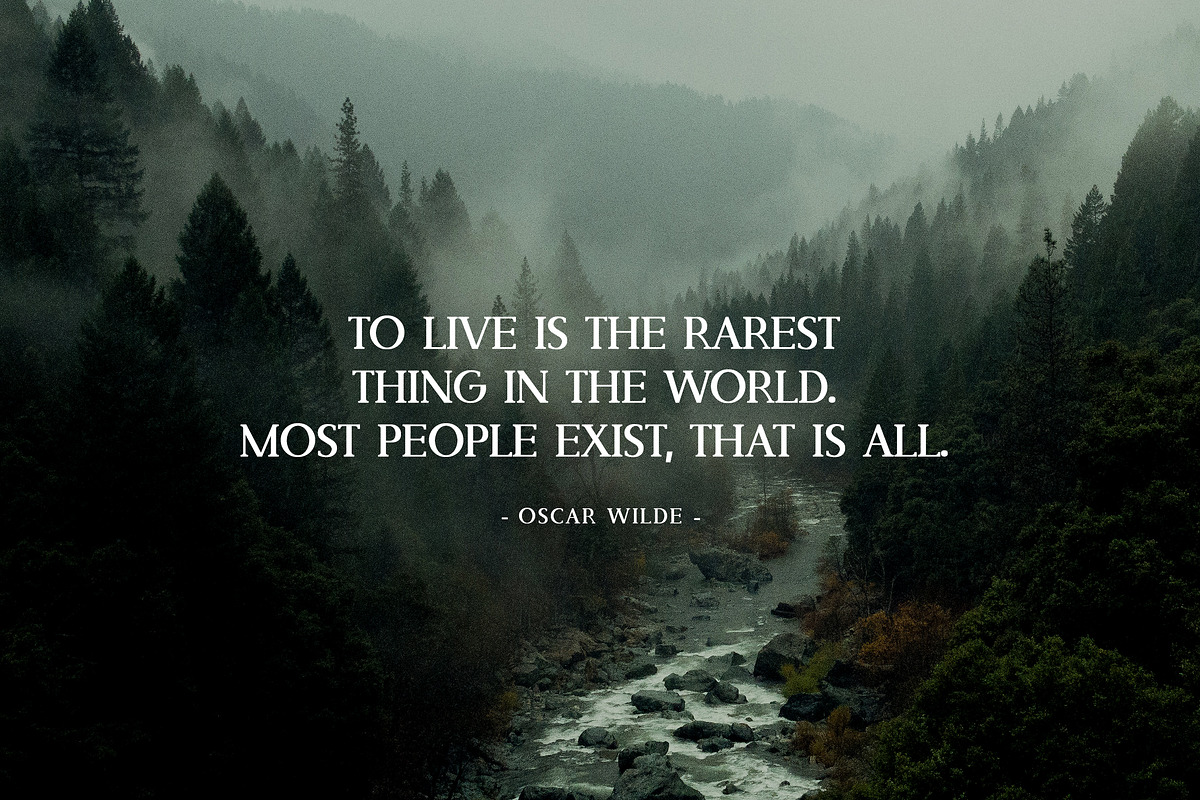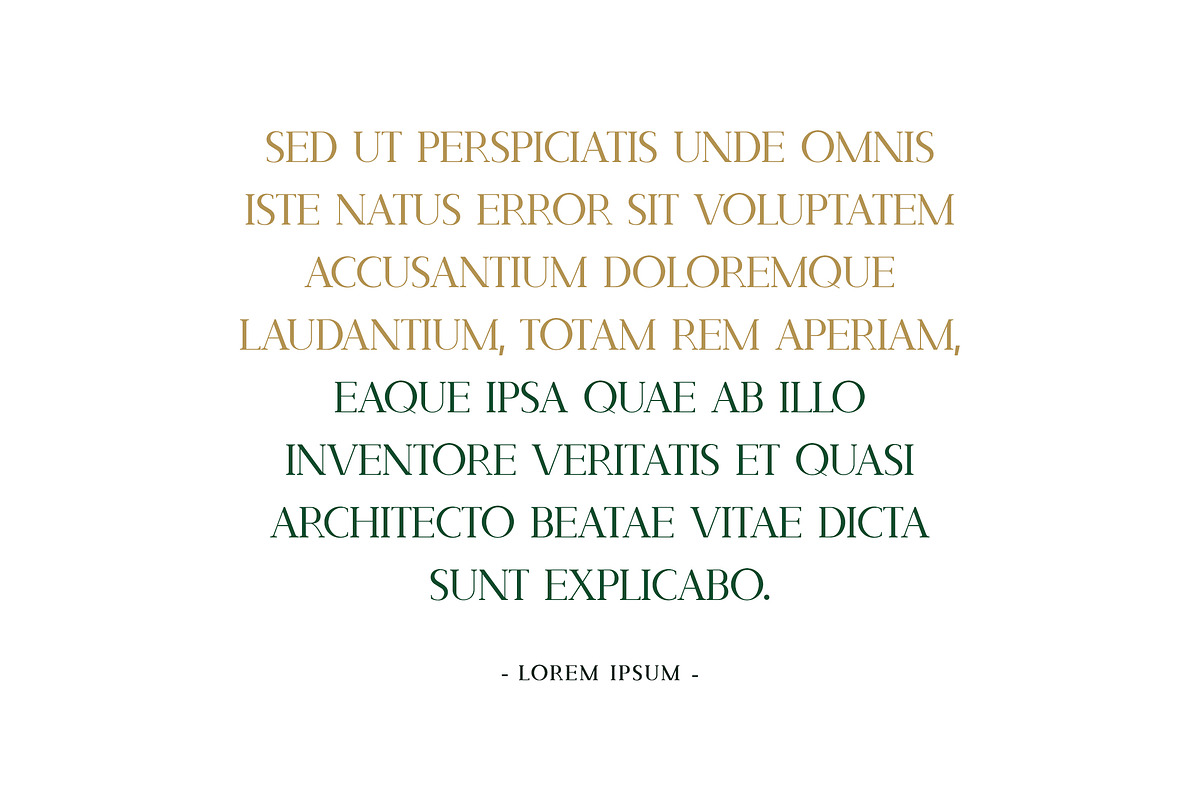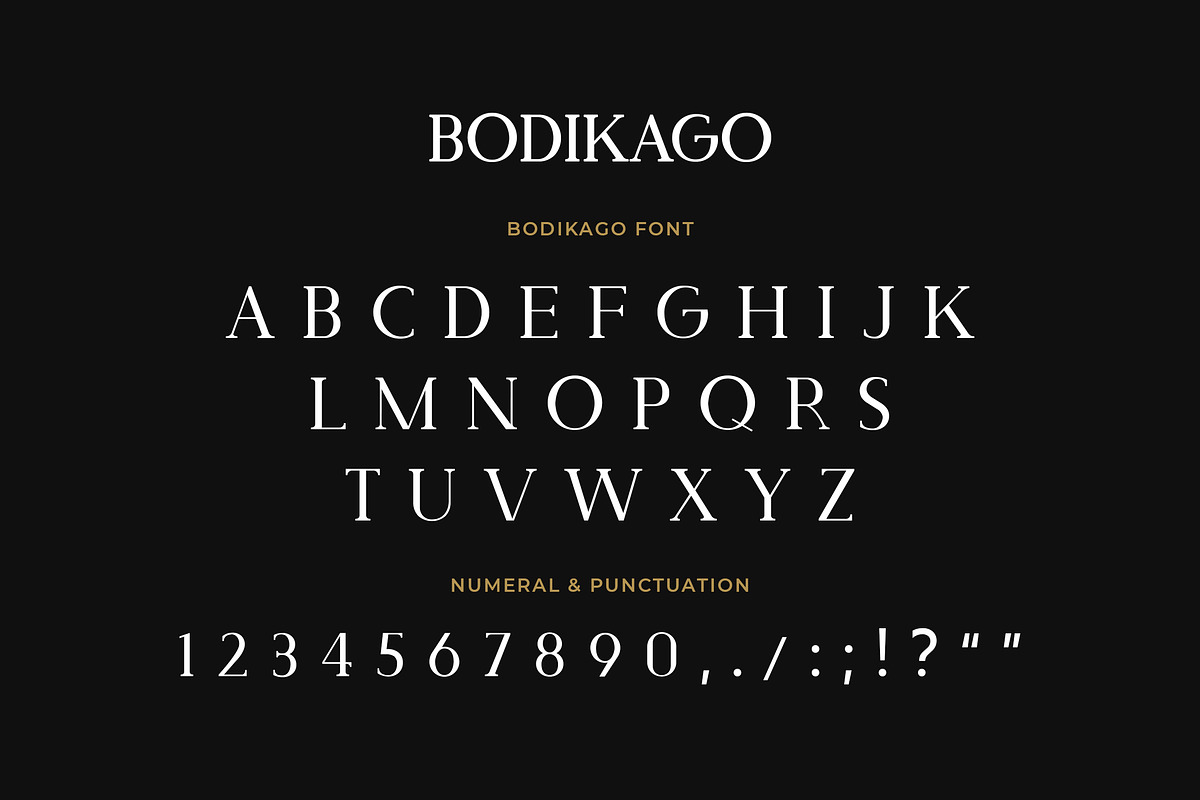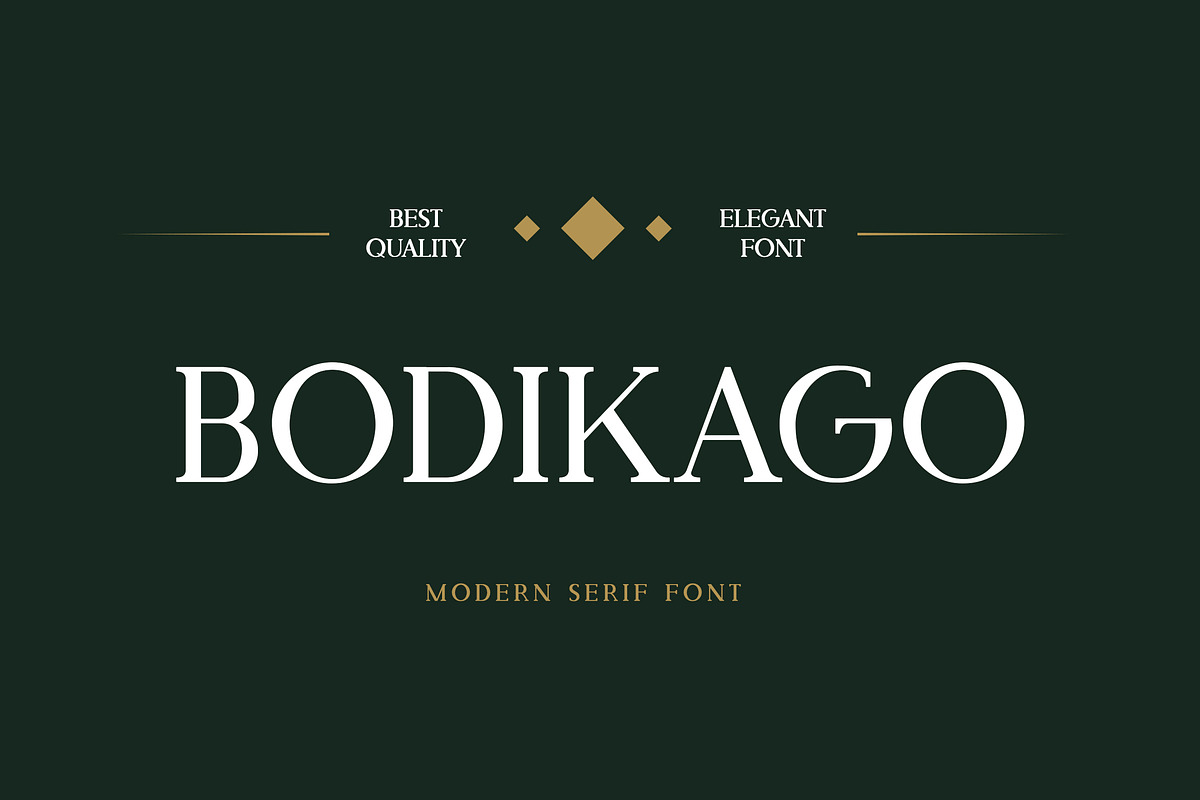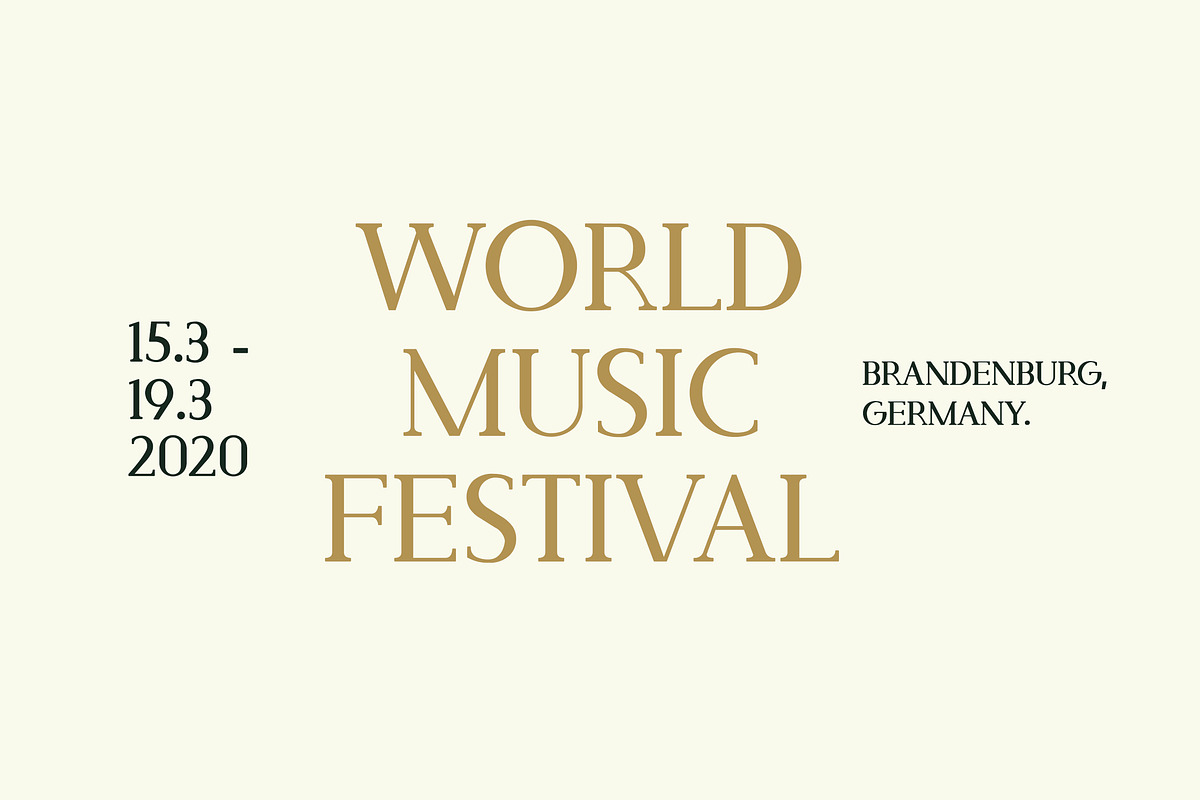
Bodikago Luxury Serif Font
Bodikago is a new serif face that is suitable both for a pleasant experience in reading texts as well as for striking headlines and for subtext applications with the heavier weights. Very suitable to use logos, posters, covers, main packaging, t-shirts, business cards, wedding cards, and more, so what are you waiting for?